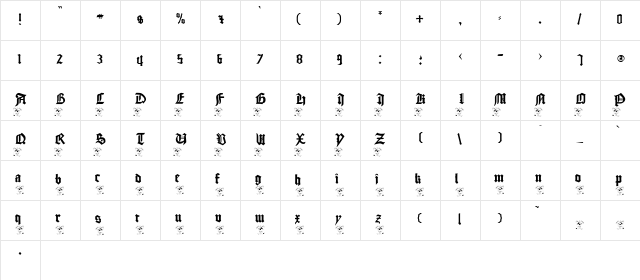
EasterBunny Regular
Design Context for EasterBunny Typeface
EasterBunny is a composed and adaptable typeface that performs quietly and consistently across a wide range of design contexts.